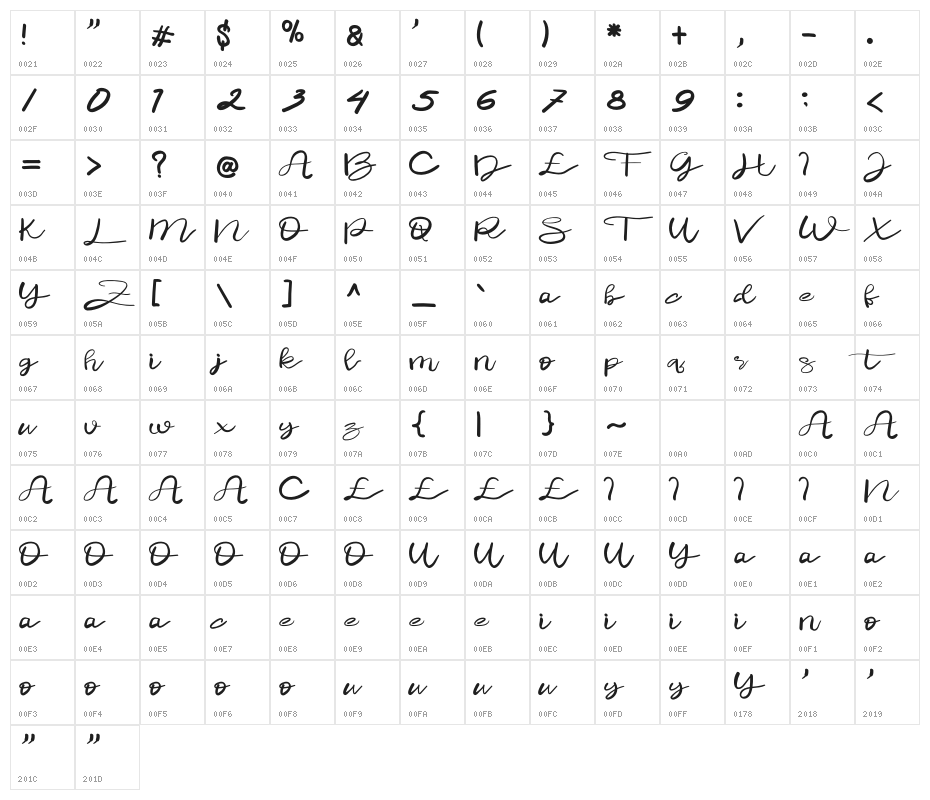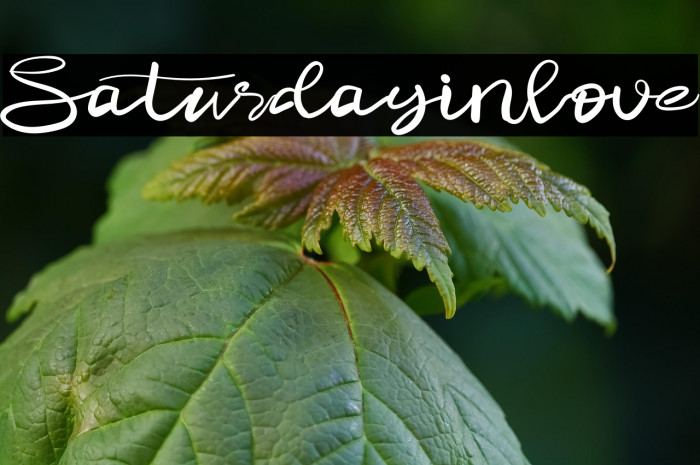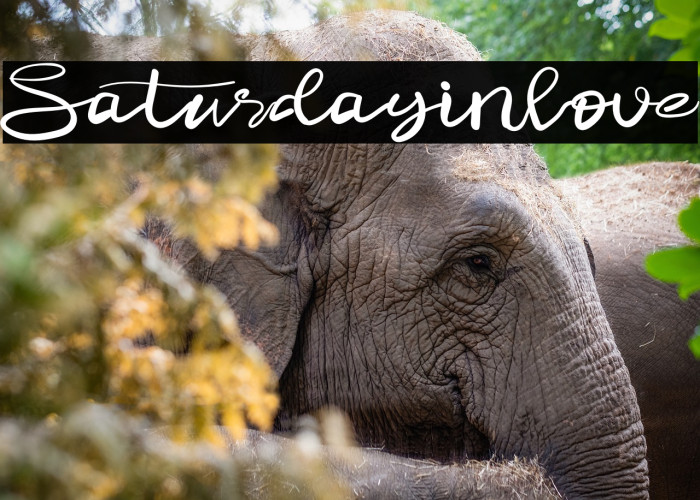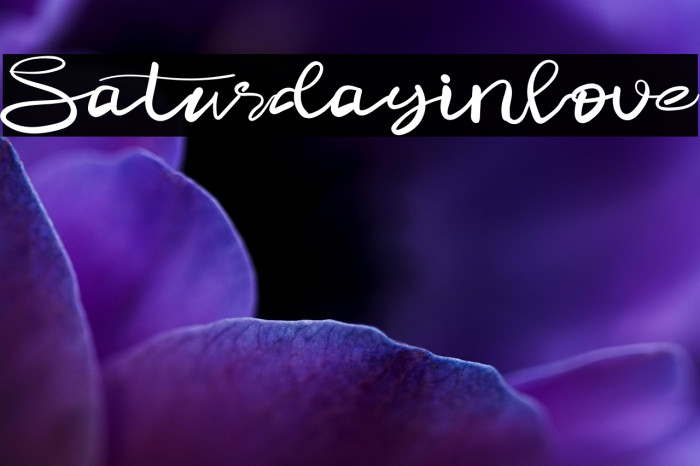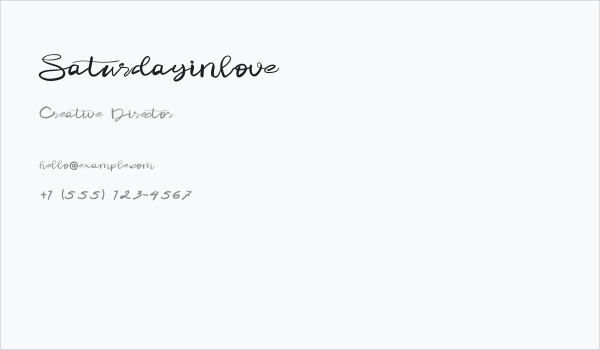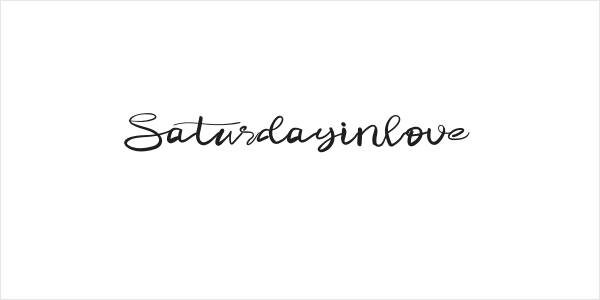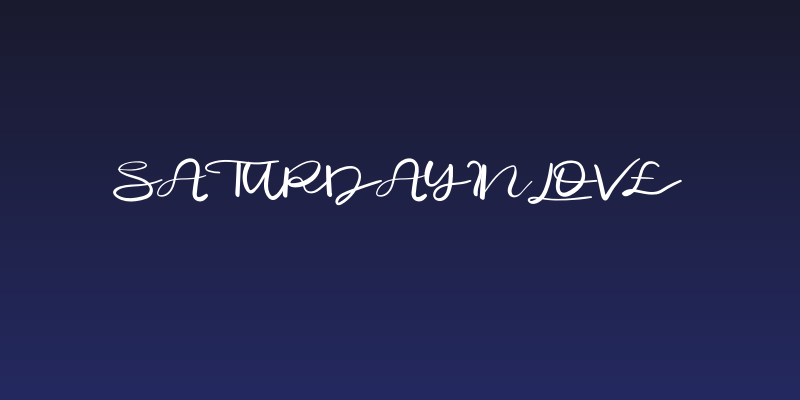
Saturdayinlove Font
Saturdayinlove Description
This font features a flowing, cursive style that exudes elegance and sophistication. The letters are interconnected, creating a seamless and fluid appearance. The strokes are smooth and rounded, with a consistent thickness that adds to the font's graceful look. The uppercase letters are slightly larger and more ornate, while the lowercase letters maintain a more uniform and balanced design. The numerals and special characters are crafted to match the overall aesthetic, ensuring a cohesive appearance across all text. This font is perfect for projects that require a touch of class and refinement.
| Proposed Projects | Ideal for wedding invitations, greeting cards, branding, and elegant logos. |